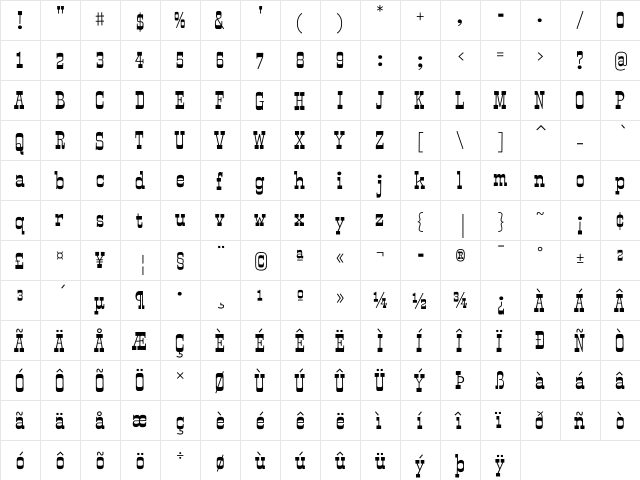
Smokum Regular
| Foundry | Astigmatic (AOETI) |
| Designer | Astigmatic (AOETI) |
Design Context for Smokum Typeface
Smokum is a composed and adaptable typeface that performs quietly and consistently across a wide range of design contexts.